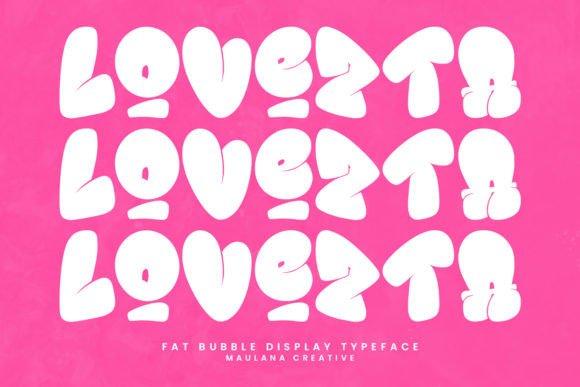
Lovezta: A Cheerful Display Font for Warm Designs
In the crowded landscape of digital and print communication, the choice of typography often dictates the emotional reception of a message before a single word is read. While many designers reach for clean, utilitarian sans-serifs to ensure legibility, there are specific moments where a design demands more than just clarity; it requires a heartbeat. This is where Lovezta emerges as a vital tool for creators seeking to infuse their projects with genuine warmth. Lovezta is a fun, cheerful display font radiating warmth and positivity. With playful curves and whimsical letterforms, it captures the essence of joy and love. Perfect for invitations, greeting cards, and designs aimed at spreading happiness, Lovezta adds a delightful touch to any project with its charming personality.
The Psychology of Playful Typography
Typography is not merely about arranging letters; it is a form of non-verbal communication that sets the stage for how an audience feels. When a viewer encounters a rigid, blocky typeface, they subconsciously prepare for information that is serious, urgent, or transactional. Conversely, when they see the soft, rounded edges of a font like Lovezta, their psychological guard lowers. The brain associates curved lines with safety, approachability, and friendliness. For professionals in marketing, event planning, or small business ownership, understanding this psychological trigger is essential for crafting campaigns that resonate on an emotional level.
Lovezta leverages this principle by utilizing whimsical letterforms that mimic the fluidity of hand-lettering without sacrificing the consistency required for professional design. The playful curves suggest movement and energy, making static text feel alive. This is particularly valuable for brands or individuals trying to break through the noise of corporate stiffness. By adopting a font that inherently signals "joy," you align your visual identity with positive emotions, making your message more memorable and shareable.
Enhancing Emotional Connection in Personal Projects
For hobbyists and individuals managing personal milestones, the stakes of design are deeply tied to sentiment. Whether you are designing a wedding invitation, a birthday card for a child, or a commemorative poster for a family reunion, the medium must match the occasion's significance. Generic fonts can make these special moments feel impersonal, as if they were mass-produced templates. Lovezta solves this problem by introducing a layer of intimacy and care.
Imagine a wedding invitation suite. The primary goal is to convey excitement and welcome guests into a celebration. Using a standard serif font might look elegant, but it lacks the specific energy of a joyous union. Lovezta, with its cheerful display characteristics, immediately communicates that this is a party, a gathering of loved ones filled with laughter. It transforms a simple piece of paper into an experience. The font's ability to capture the essence of love makes it an ideal choice for couples who want their stationery to reflect their personalities rather than adhering strictly to tradition.
Practical Applications for Professionals and Entrepreneurs
Beyond personal use, Lovezta offers significant utility for entrepreneurs and marketers who need to humanize their brand voice. In an era where consumers crave authenticity, businesses that appear too polished or distant often struggle to build loyalty. Incorporating a font with a charming personality can bridge the gap between a corporation and a community.
Small Business Branding: Local bakeries, boutique toy stores, and lifestyle bloggers often benefit from a visual identity that feels warm and inviting. Lovezta works exceptionally well as a logo font or for headline treatments on social media graphics. It signals that the business is friendly, accessible, and perhaps even handmade. For example, a bakery using Lovezta for its weekly specials menu creates an immediate association with comfort and homemade quality, potentially increasing foot traffic from customers looking for a cozy experience.
Educational Content and Workshops: Educators and workshop facilitators frequently deal with dry or complex subject matter. Using a cheerful display font for titles, slide headers, or handouts can reduce cognitive load and anxiety. When students or participants see a header written in Lovezta, they perceive the material as approachable and fun. This subtle shift in tone can improve engagement rates and make learning environments feel more supportive.
Event Marketing: Event planners rely heavily on visual cues to sell an atmosphere. Whether organizing a charity gala, a community festival, or a product launch, the promotional materials set expectations. Lovezta helps define the mood instantly. It tells the attendee that the event will be lively and positive. This clarity saves time in the decision-making process for potential attendees who scan flyers and emails quickly; the font does the heavy lifting of communicating the vibe.
Strategic Implementation and Design Balance
While Lovezta is powerful, it is important to recognize its classification as a display font. Display fonts are designed for headlines, logos, and short phrases, not for long blocks of body text. Attempting to write a full paragraph in Lovezta would likely compromise readability due to its decorative nature and varying character widths. To maximize efficiency and maintain professional standards, designers should pair Lovezta with a neutral, highly legible sans-serif or serif font for the main content.